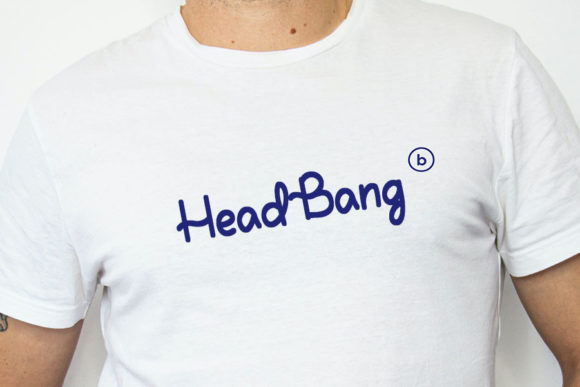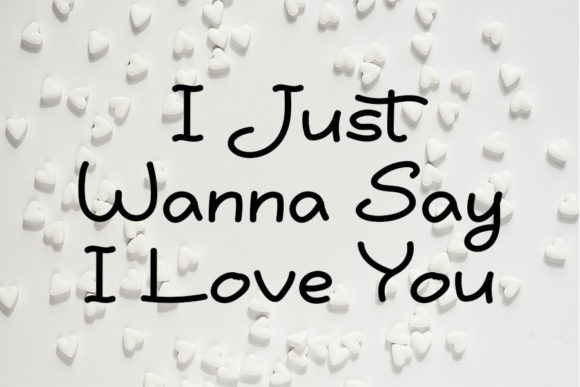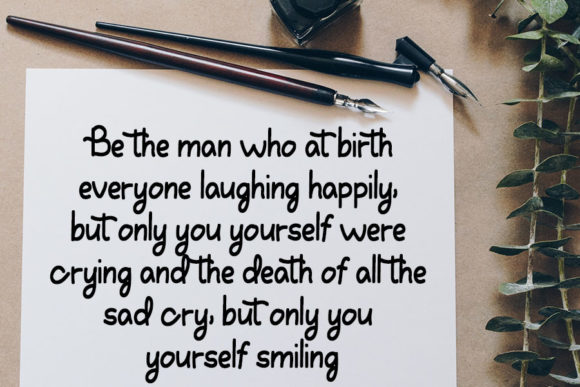
Monstera Font
About Monstera Font
Monstera is a simple, clean and adaptable handwritten font. Suitable to a wide variety of designs, this font has the potential to become your favorite go-to font, no matter the occasion!